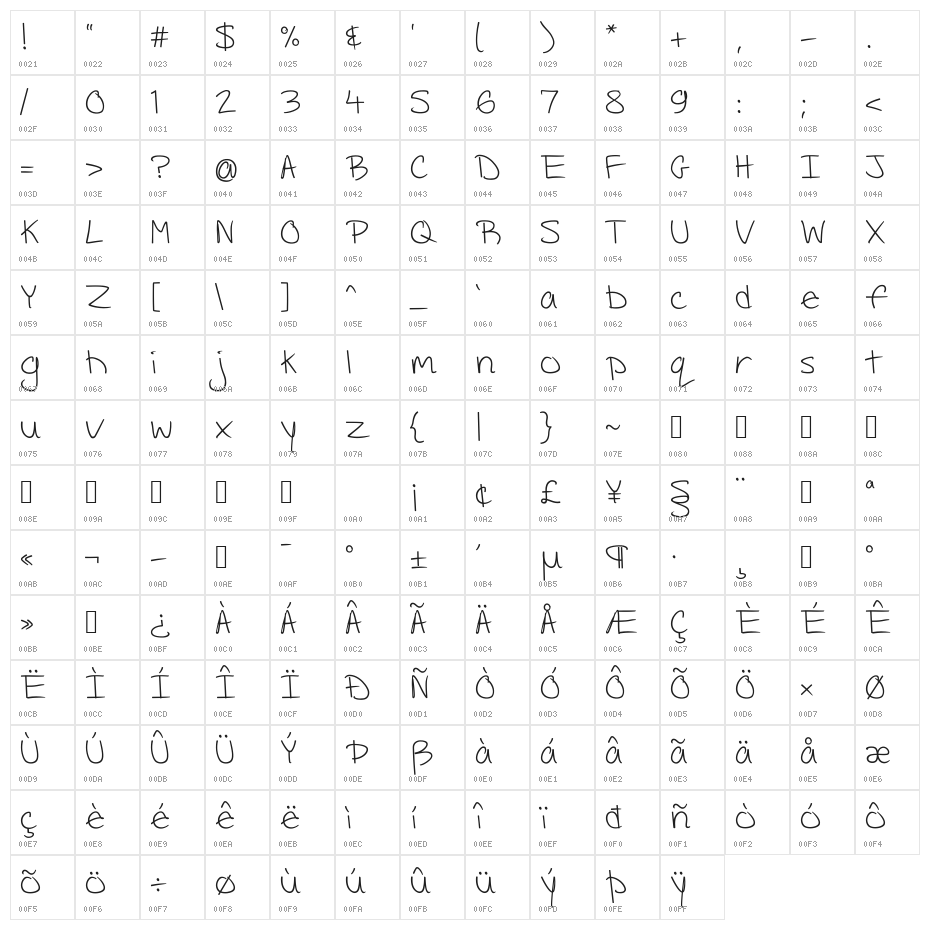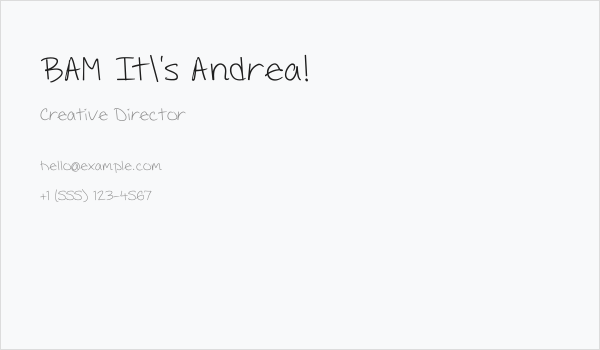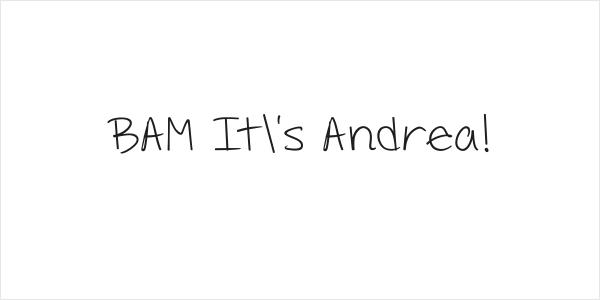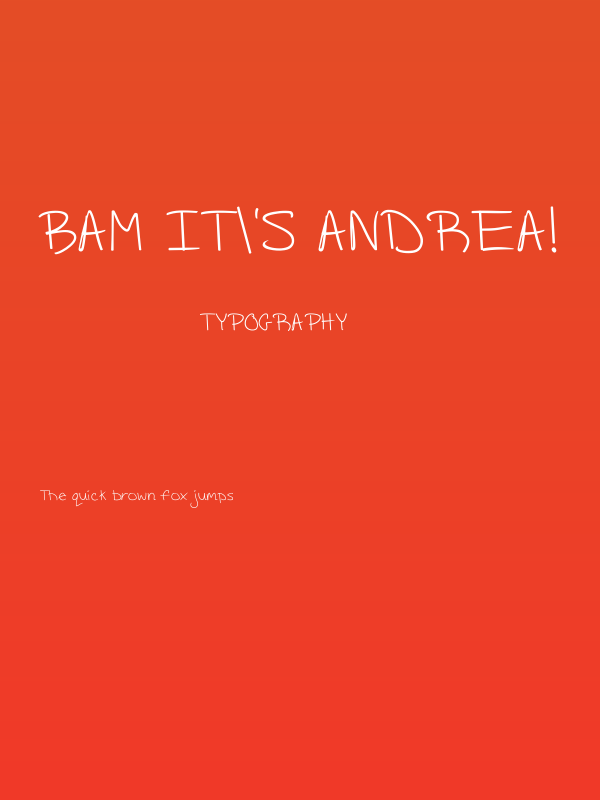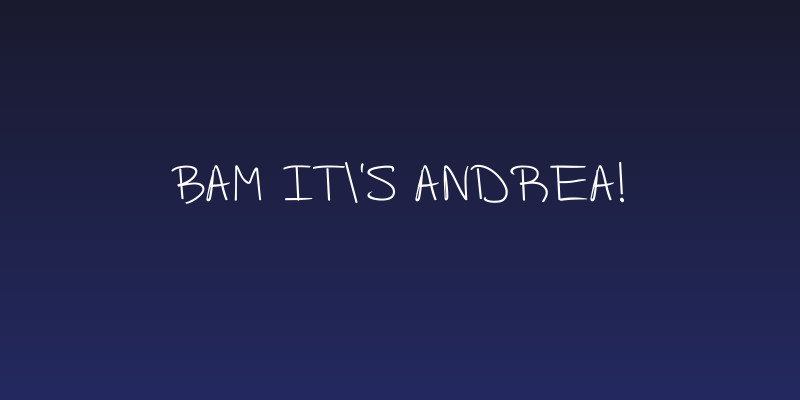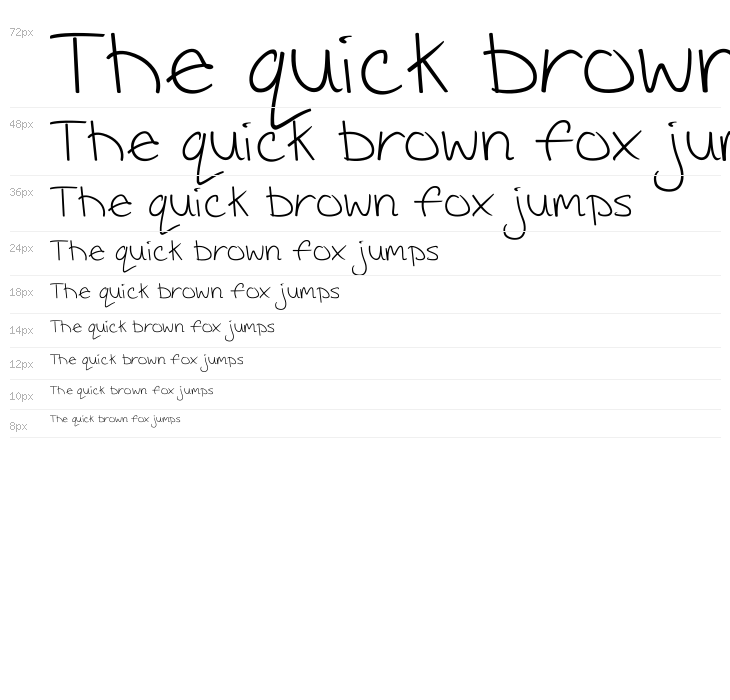
BAM It's Andrea! Font
BAM It's Andrea! Description
This playful and casual font features a handwritten style with a relaxed and informal appearance. The characters are slightly uneven, adding a personal and friendly touch. The strokes are consistent in width, giving it a clean and approachable look. The uppercase and lowercase letters maintain a cohesive style, with rounded edges and a slight tilt, enhancing its handwritten feel. The numerals and special characters are well-integrated, maintaining the overall aesthetic. This font is perfect for projects that require a personal and informal tone.
| Use Case | Logos, Headlines, Informal text |
| Proposed Projects | Ideal for greeting cards, personal blogs, children's books, and informal branding. |